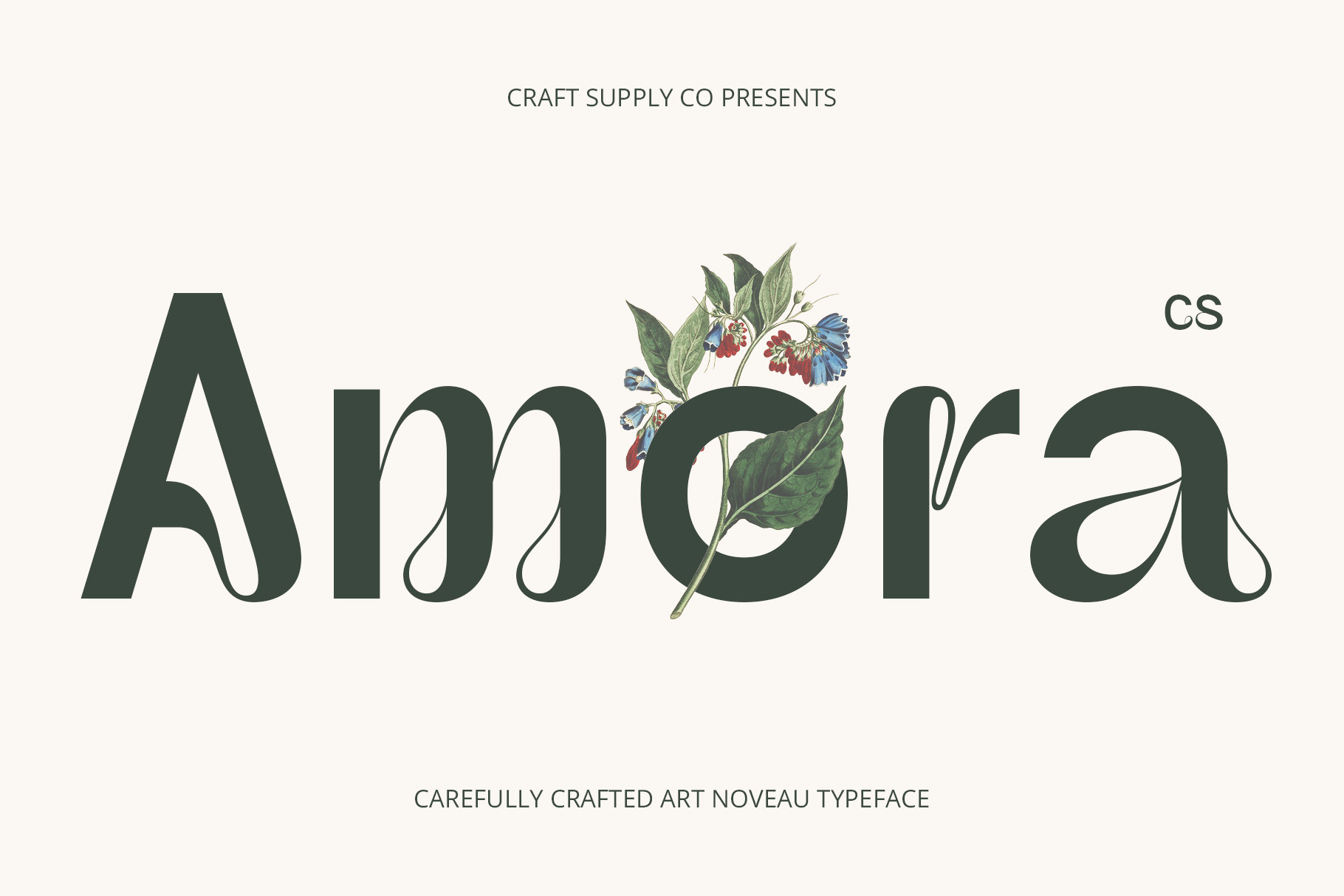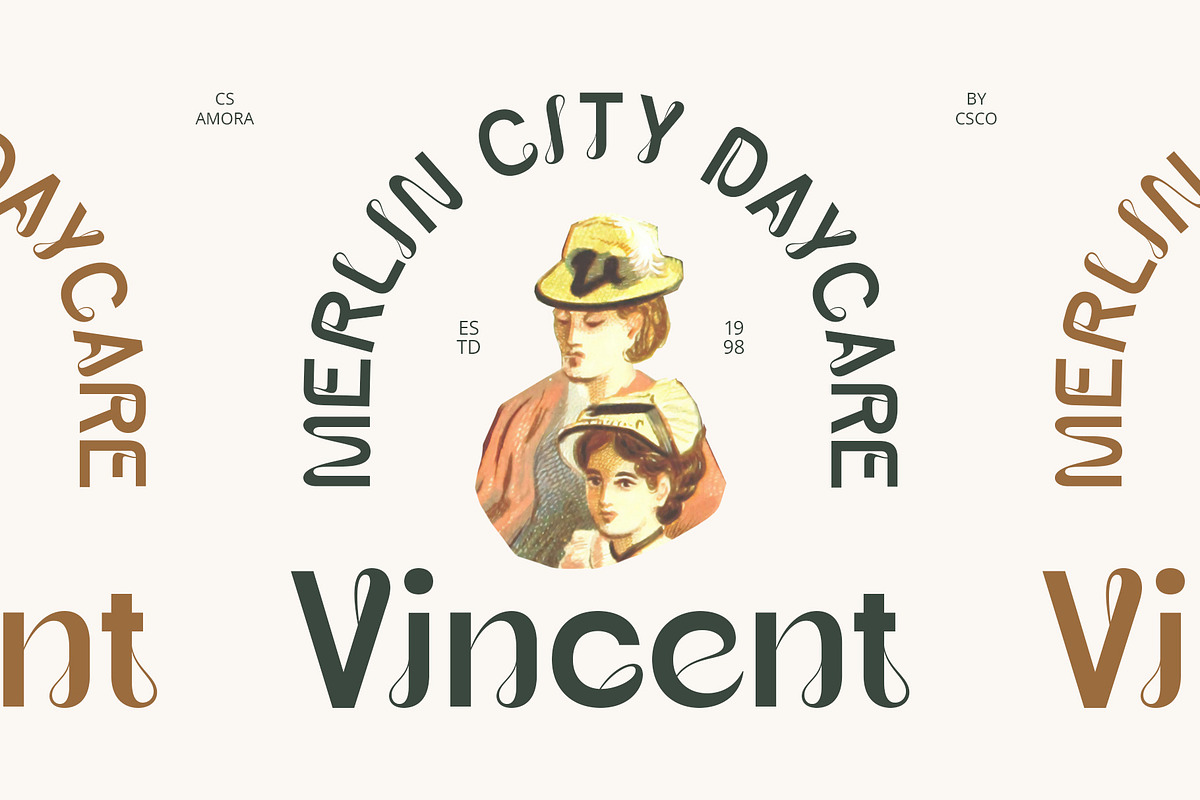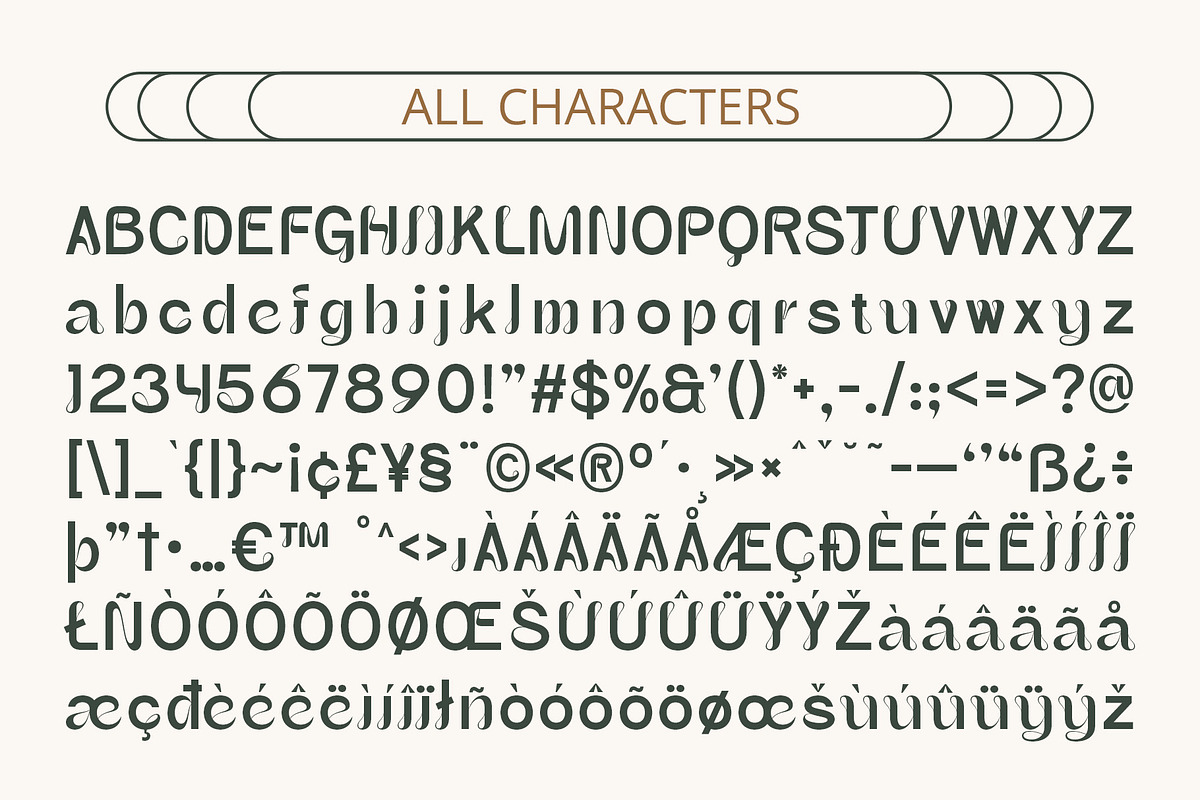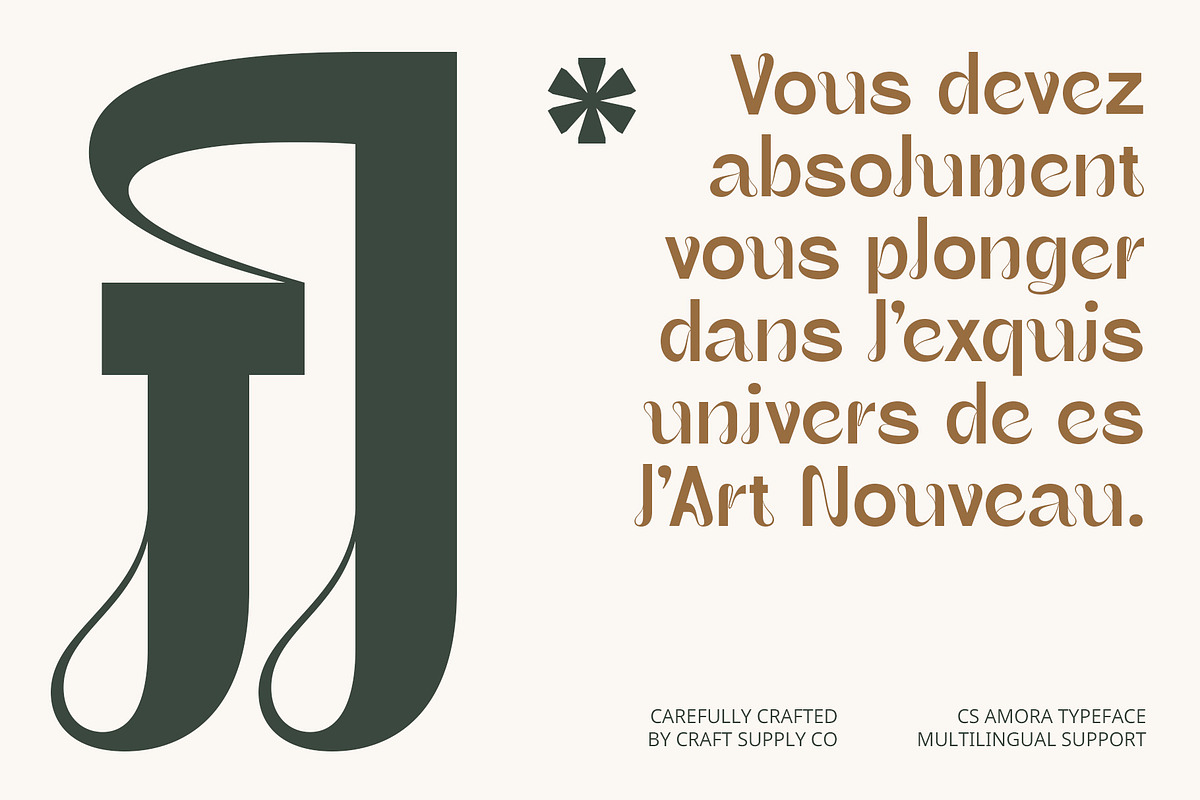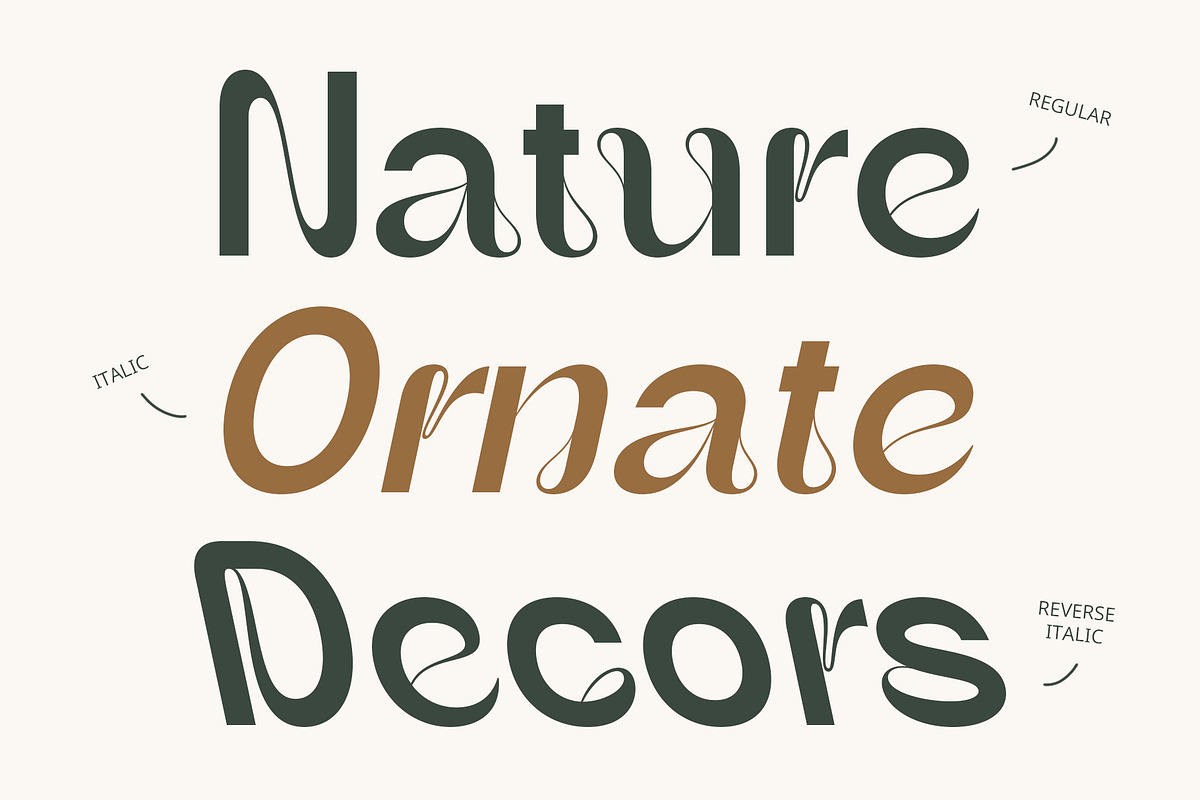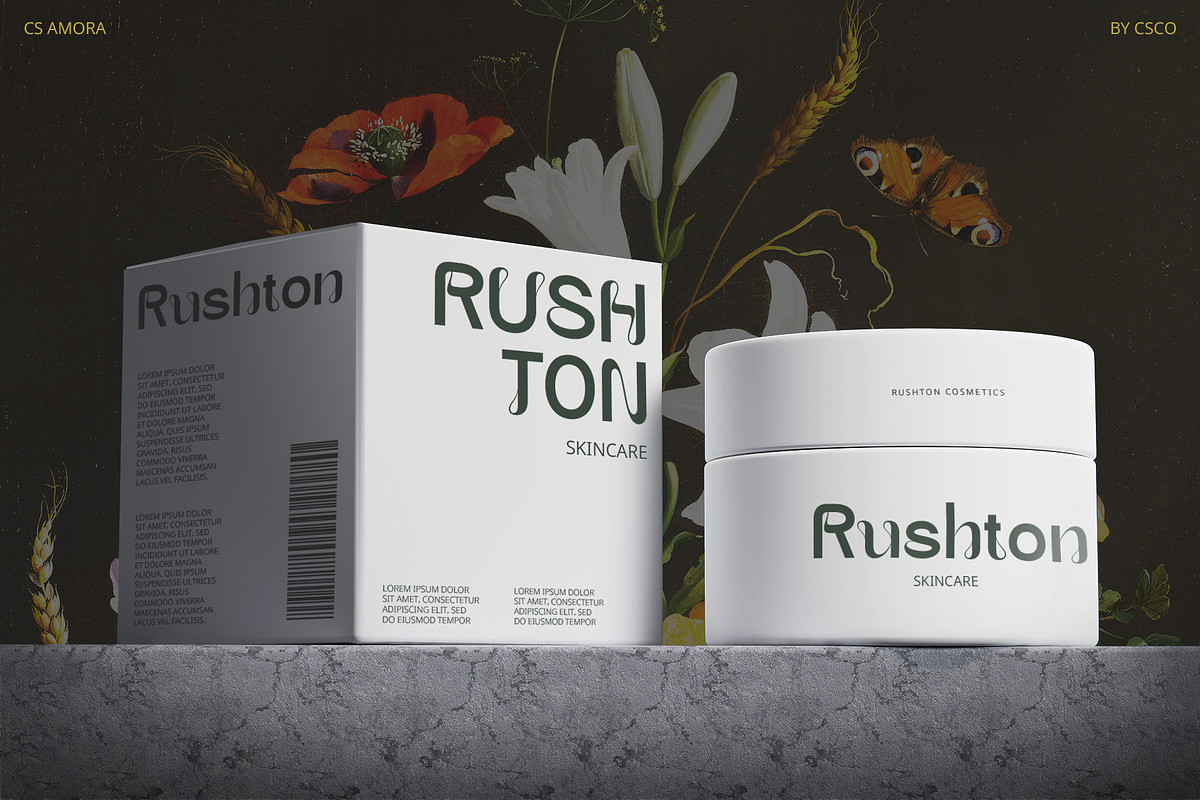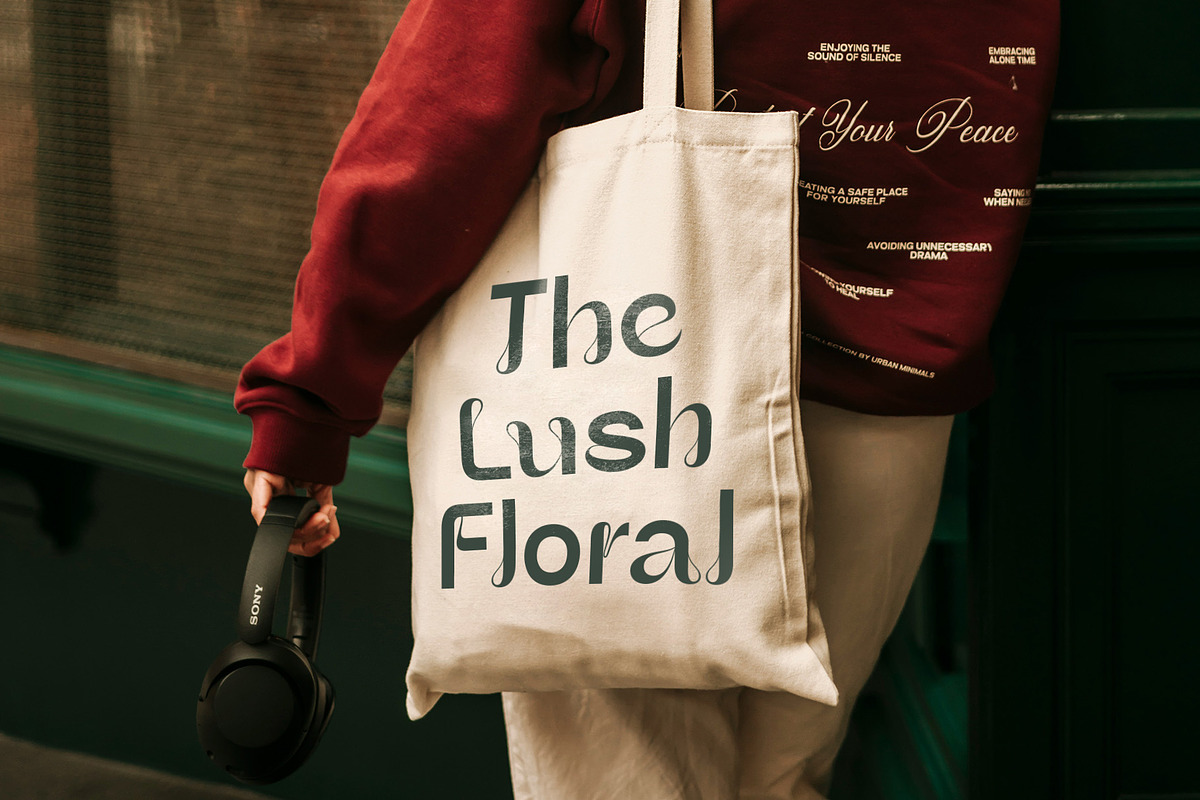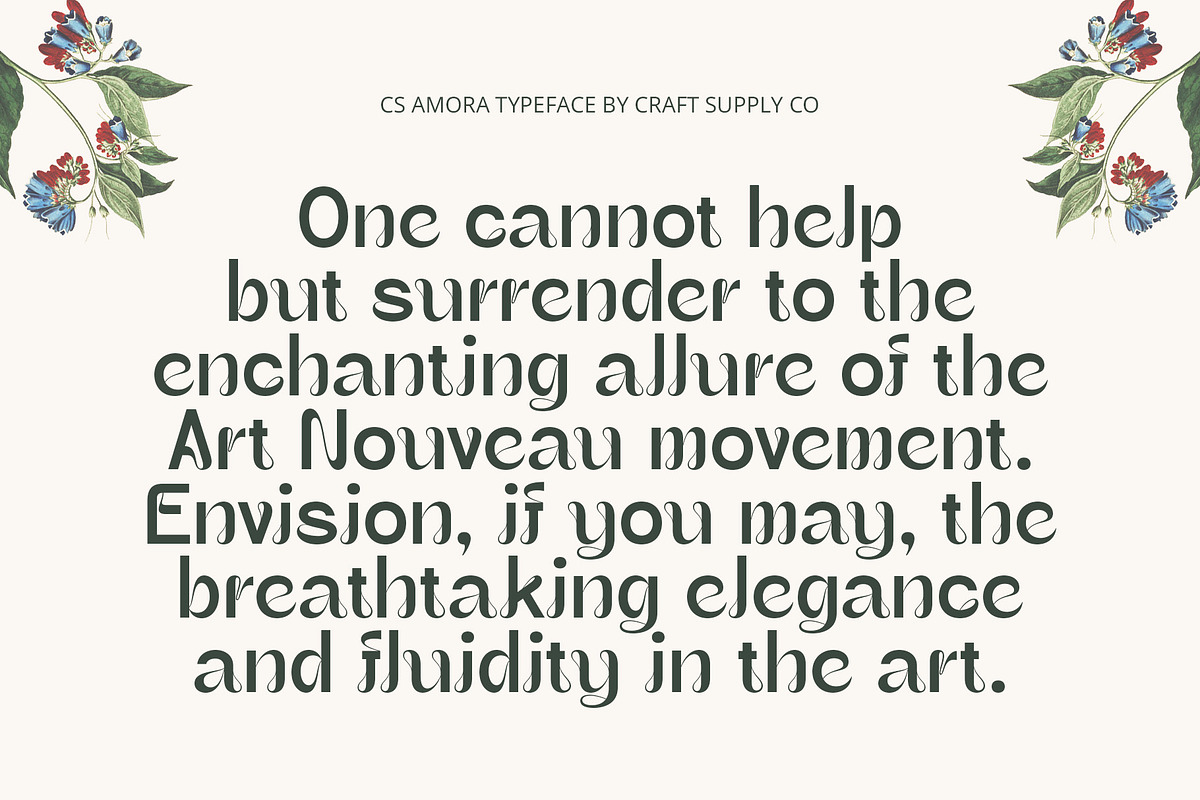
CS Amora – Art Nouveau Font
CS Amora: Elegant Sans Serif Font with Art Nouveau Design
Distinctive Beauty and Artistic Flair CS Amora, a sans serif font with an Art Nouveau design, offers an exquisite blend of beauty, elegance, and artistry. Characterized by intricate decorative details and flowing organic forms, this font embodies the grace and luxury synonymous with the Art Nouveau style.
Perfect for Timeless and Classy Designs Ideal for projects that seek to evoke a vintage and classy feel, CS Amora is perfect for showcasing timeless uniqueness and beauty. Whether for branding, invitations, or creative layouts, this font brings an elegant and refined touch to any design.
Reflects Grace and Luxury With its intricate details and flowing forms, CS Amora reflects a sense of grace and luxury. Its distinctive design ensures that your projects stand out, adding an element of sophistication and timeless appeal.
Elevate Your Design with Classic Elegance CS Amora is the perfect choice for designs aiming to highlight elegance and artistry. Its Art Nouveau elements provide a unique aesthetic that enhances the overall visual appeal, making it a standout choice for those seeking to create beautiful and timeless designs.
- CS Amora Regular
- CS Amora Italic
- CS Amora Reverse Italic